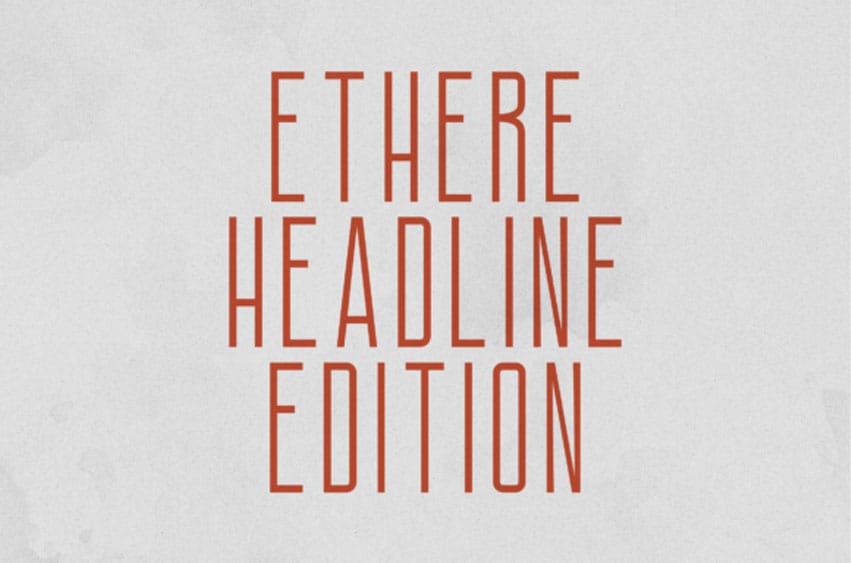
Ethere Headline Edition Font Headline Edition is a tall, condensed sans serif font designed for clean, modern headlines and high-impact typography. With its narrow proportions, consistent stroke weight, and minimalist construction, Ethere delivers a sharp and contemporary voice ideal for editorial design and bold visual communication.
This Ethere typeface features tall, narrow letterforms and a consistent stroke weight that creates a sophisticated, rhythmic appearance. It is the ultimate tool for editorial layouts, cinema posters, and luxury fashion headers where space is at a premium but style is non-negotiable. The Ethere font commands the page with its towering presence, making it perfect for powerful, short statements. Pair it with an expansive, wide-spaced secondary font to create a dynamic typographic hierarchy that feels curated and professional.
Perfect for headlines, posters, branding, magazines, packaging, web design, and modern layouts, this font excels where clarity and elegance meet restraint. Its vertical rhythm and airy spacing make it especially effective for large-scale text and typographic statements.